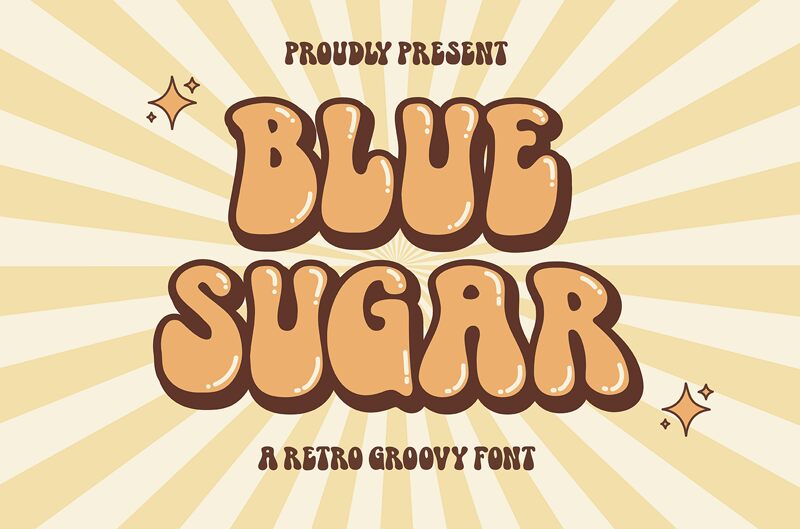
Blue Sugar Groovy font by Faras Dina is a free font that embraces retro vibes and nostalgia. The eye-catching designs will remind you of vintage packaging, signage, and media. Letters connect in a curvaceous and whimsical manner keeping things both legible and fun.
Use Blue Sugar Groovy in posters, book covers, invitations, and titles. The nostalgic aura combined with vibrant aesthetics can make it a show-stealer in branding, advertising, or simple social media posts. Each letter is vivid, playful, and gorgeous with interesting details and a charming vibe projected by the font in its entirety.